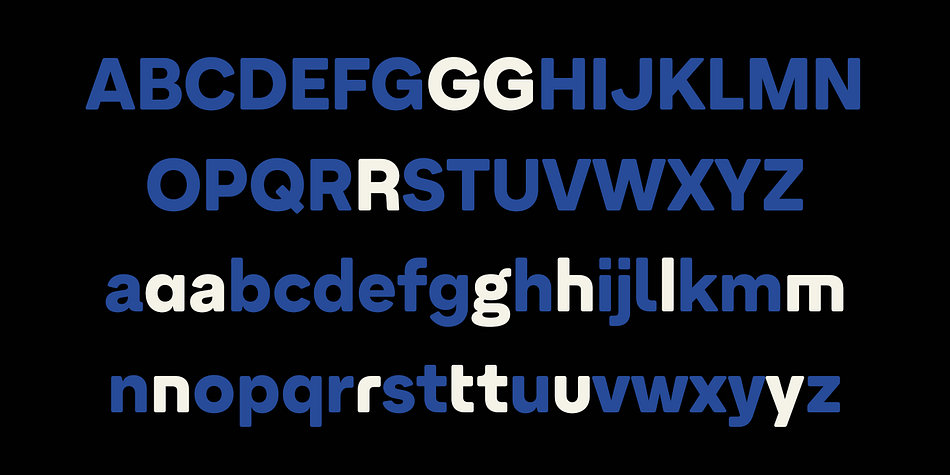
Armin Soft
Designed by David Súid, Armin Soft is a sans serif font family. This typeface has fourteen styles and was published by W Type Foundry.
As a graphic designer, sometimes it’s impossible not to be inspired by the Swiss Style, specifically the work of Armin Hofmann, who is one of its best exponents. Grids and grotesk and neo-grotesk typefaces are a fundamental part of the tools that make this aesthetic possible. A visual language that has caused full admiration since we were students. Therefore, we decided to design Armin as an homage to Hofmann’s work. Technically, we added stylistic sets applied to the letters –G, R, a, g, h, l, m, n, r, t, u, y– to make Armin more eclectic and suitable for the creation of any visual language.